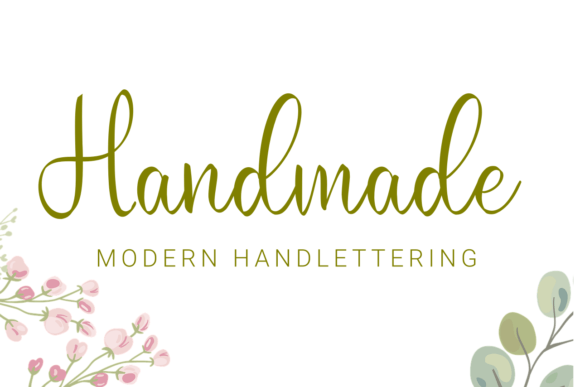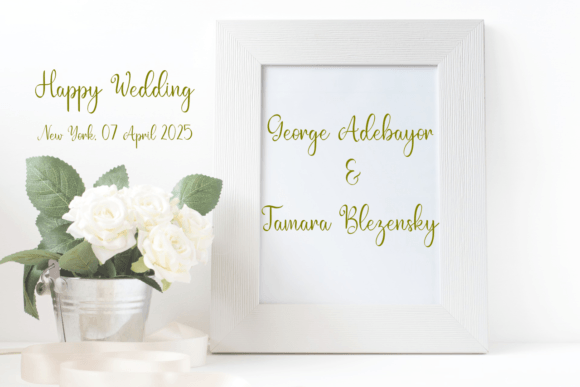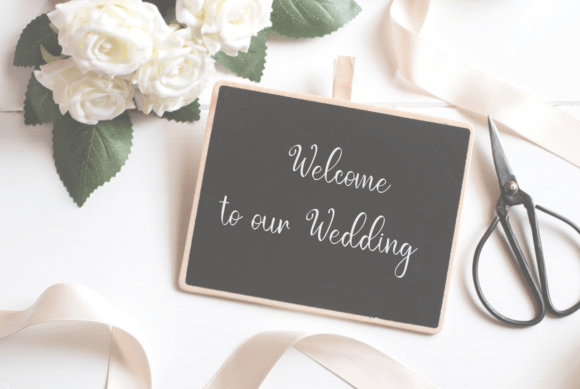
Enhance your creative projects with the Handmade font, a delicate and elegant handwritten script. This font is designed to bring a timeless and flowing style to any design. Whether you are working on logos, invitations, branding, or other artistic creations, Handmade adds a special touch.
The Handmade font features smooth, graceful strokes that flow naturally, creating a unique and sophisticated appearance. Its distinct style makes it perfect for projects that require a personal and refined look. Use it to make your designs stand out with elegance.
You can apply the Handmade font to a variety of projects, including wedding invitations, business branding, greeting cards, posters, and social media graphics. This font adds a classy and gentle feel that enhances the emotional connection with your audience.
Despite its delicate appearance, the Handmadefont offers excellent readability across different sizes. Whether used for large headlines or smaller text details, it maintains clarity while adding a stylish flair.
Using the Handmadefont will elevate your creative work by adding a beautifully flowing, handwritten touch. If you want to bring elegance and timeless charm to your projects, this font is an excellent choice.
In summary, the Handmadefont is a delicate, elegant, and flowing handwritten script. Perfect for logos, invitations, branding, and many other designs, it delivers timeless style. Download it today and create spectacular designs with Handmade.